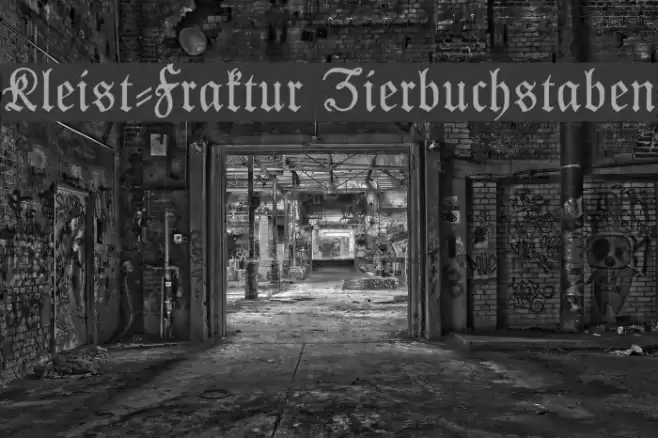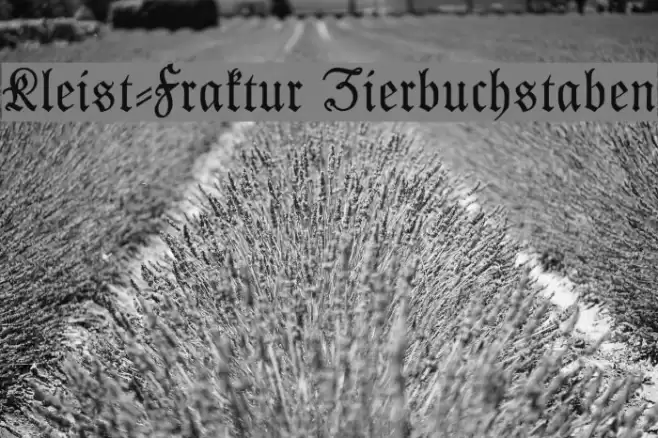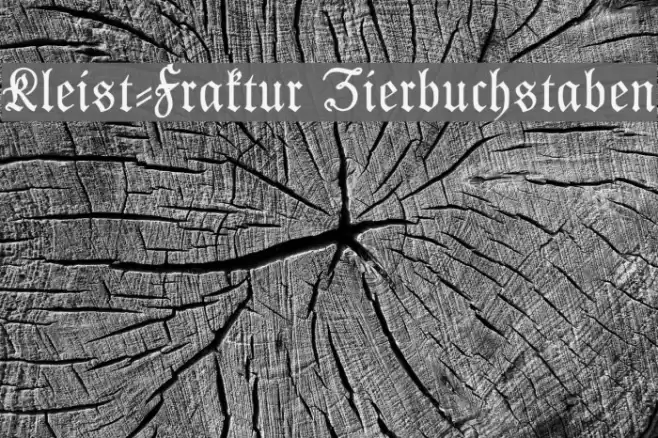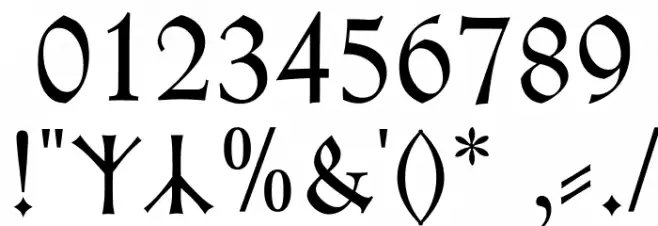
This font embodies a traditional blackletter style, characterized by its ornate and intricate design. The uppercase letters feature elaborate flourishes and sharp angles, giving them a distinctly gothic appearance. The lowercase letters maintain a similar aesthetic, with pointed arches and a consistent stroke width that enhances readability while preserving the decorative nature. The numerals are bold and clear, matching the overall style with their angular forms. Special characters are equally stylized, integrating seamlessly with the rest of the typeface. This font is ideal for projects that require a historical or medieval touch, offering a sense of elegance and formality.
An ornate blackletter font with gothic flourishes and sharp angles from Uncategorized fonts.
- Proposed Projects: Suitable for historical documents, wedding invitations, book covers, and branding that requires a classic or medieval theme.
- Overall Style: Classic